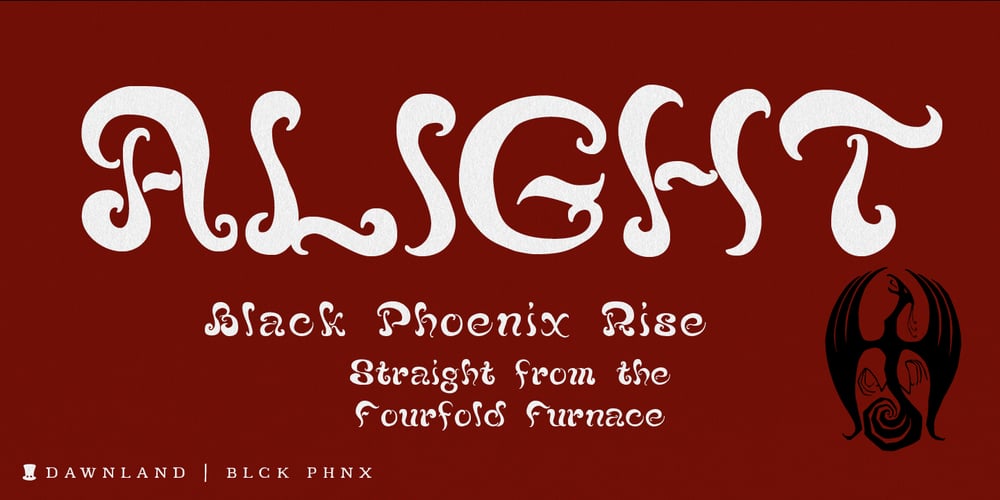
Blck Phnx
Blck Phnx font
Blck Phnx Font Family was designed by Daniel Viberg and published by Dawnland. Blck Phnx contains 1 styles and family package options. From the flames of the fourfold furnace, lo and behold – the Black Phoenix has risen!